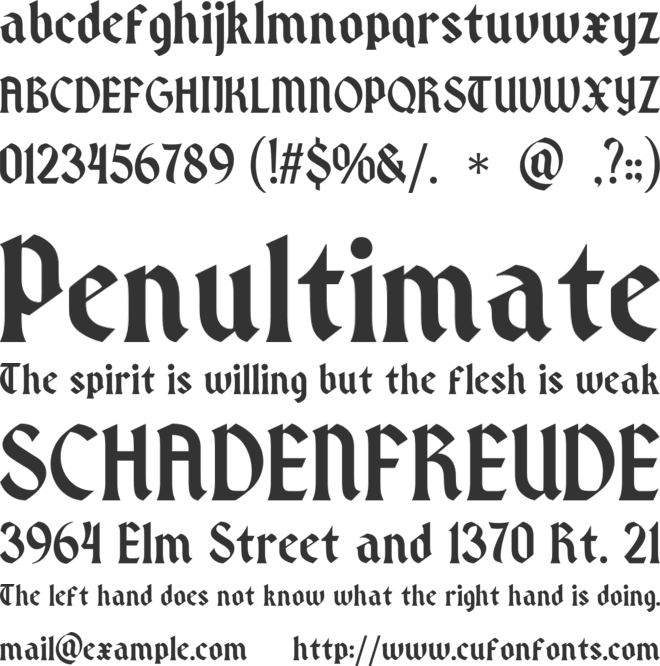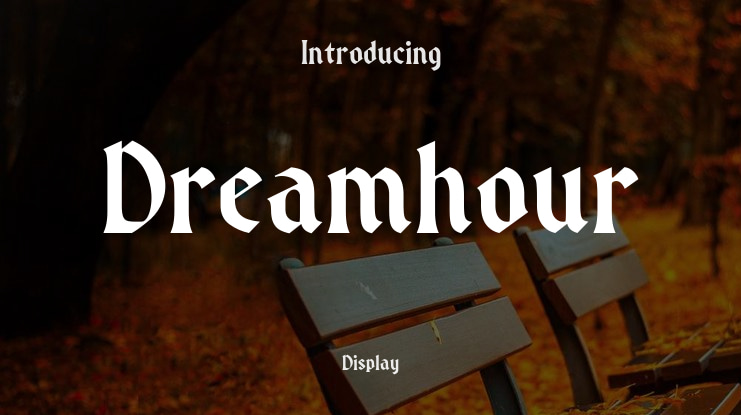
Dreamhour Font
Dreamdour Typeface
A Gothic-Serif Fusion Typeface for Modern Mythmakers
Dreamdour is a richly ornamental display typeface that weaves together the expressive, rigid elegance of blackletter tradition with the clarity and balance of contemporary serif design. Created for those who dare to make a bold statement, Dreamdour is a font family that exudes confidence, mystery, and high-craft artistry.